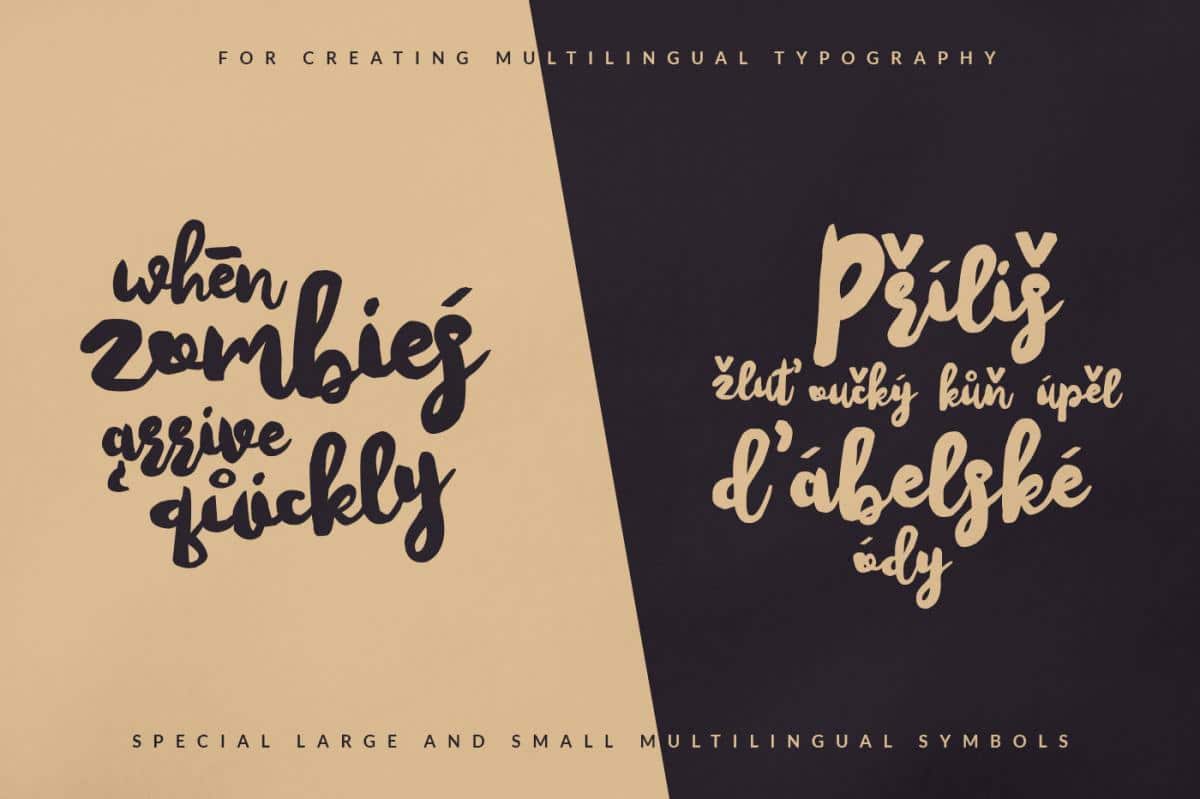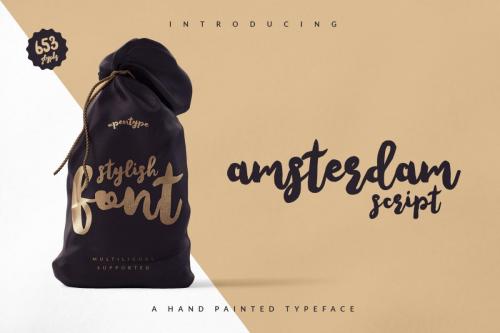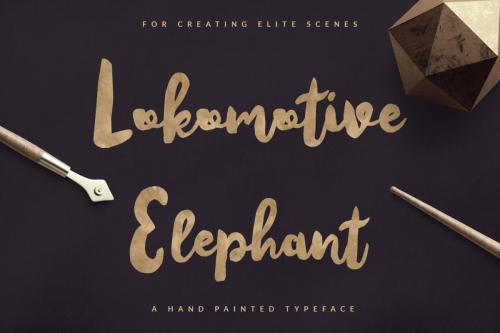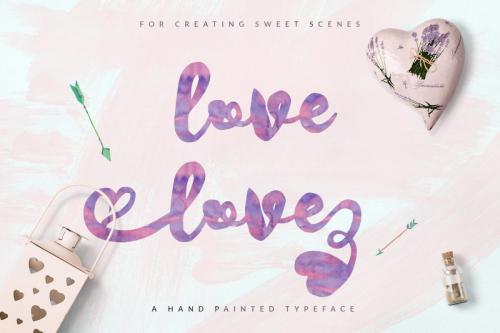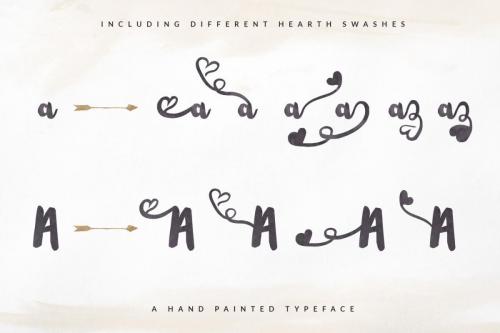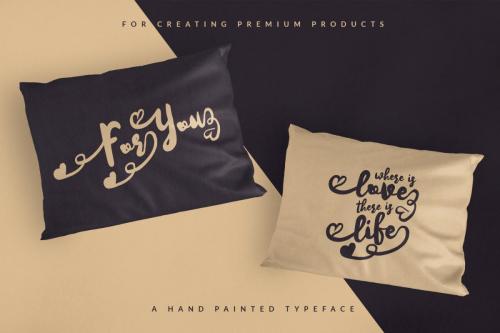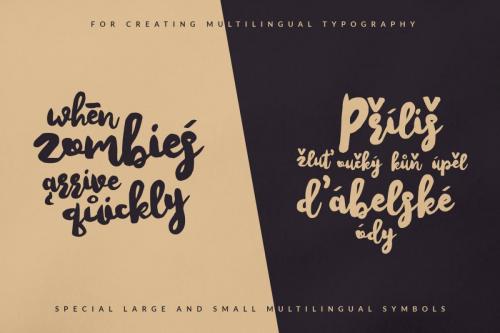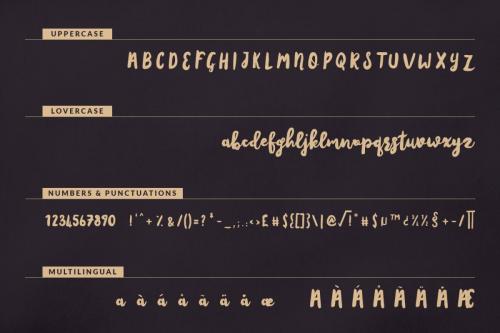
Amsterdam Script is a hand-made font created by using bold brush. It is a lovely font. It can be easily used for t-shirts, bags, invitations and so on… It is becoming more interesting with swashes characters. Than you for viewing it. We hope you would like it.